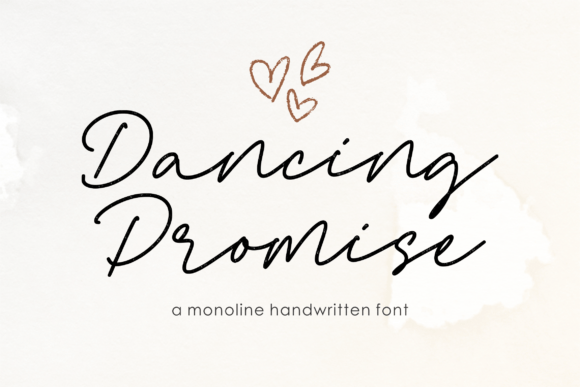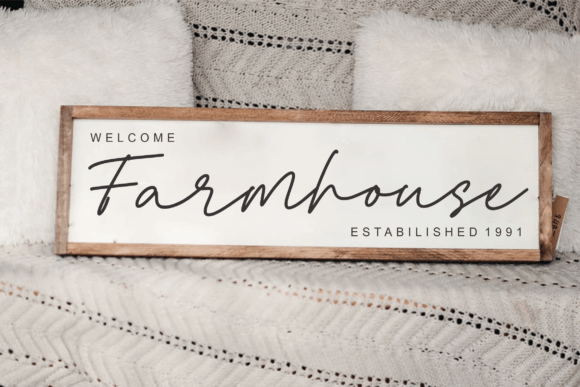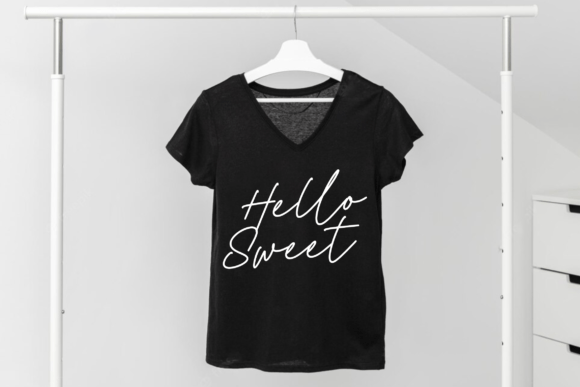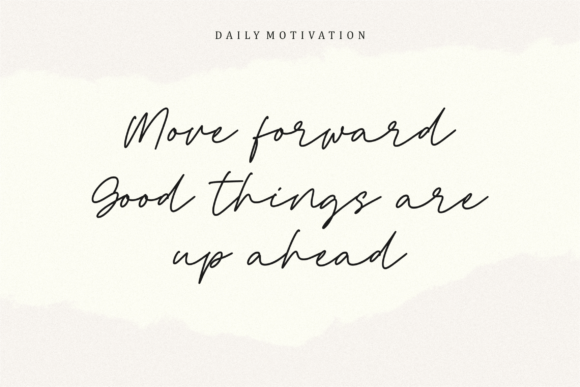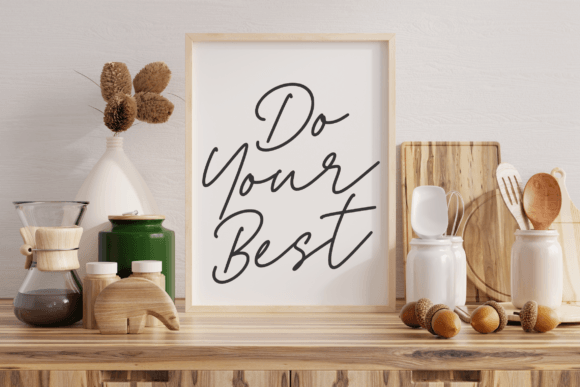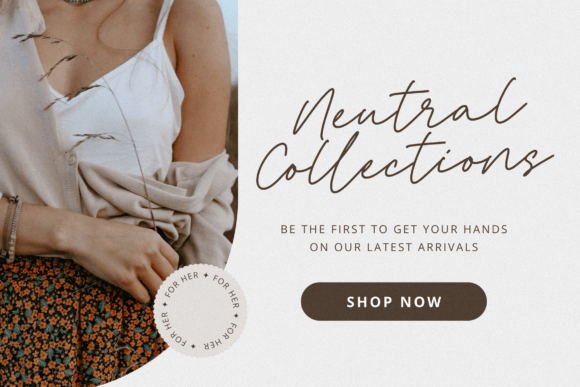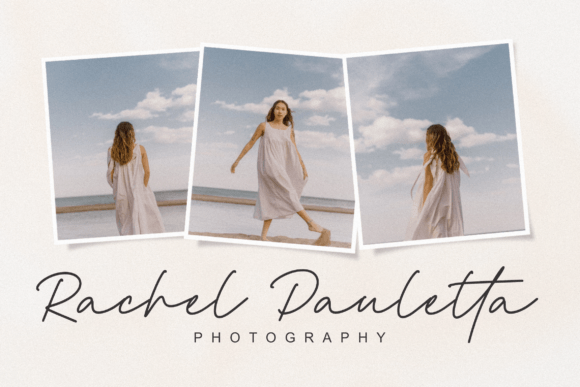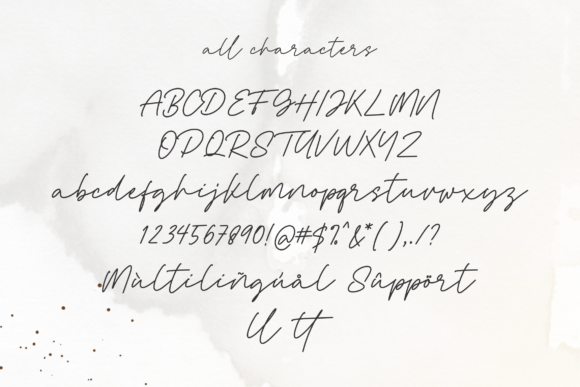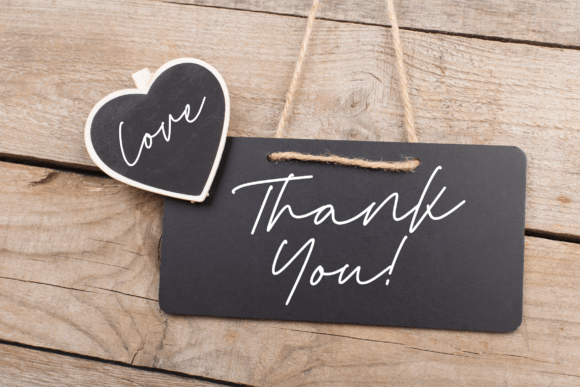
Dancing Promise Font
About Dancing Promise Font
Dancing Promise is a Monoline Handwritten Font
Dancing Promise is perfect for product packaging, branding project, magazines, social media, weddings, or just used to express words above the background.